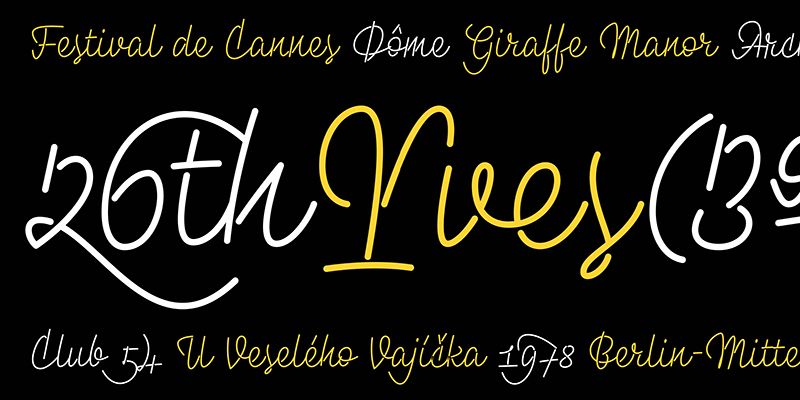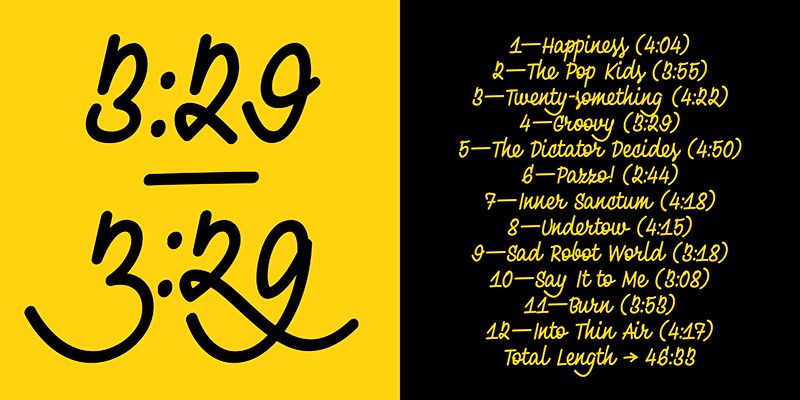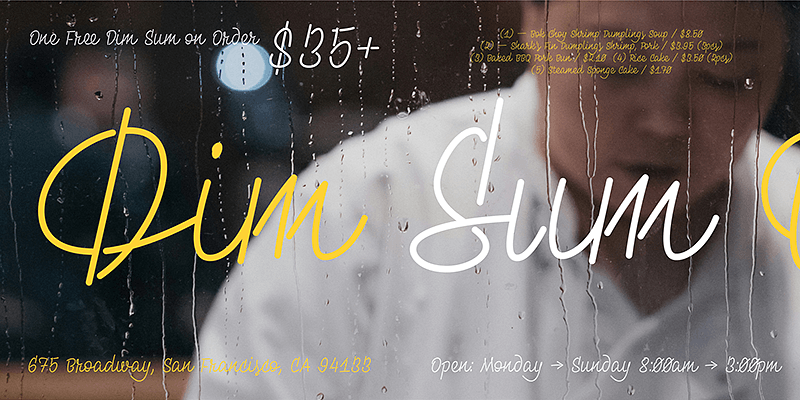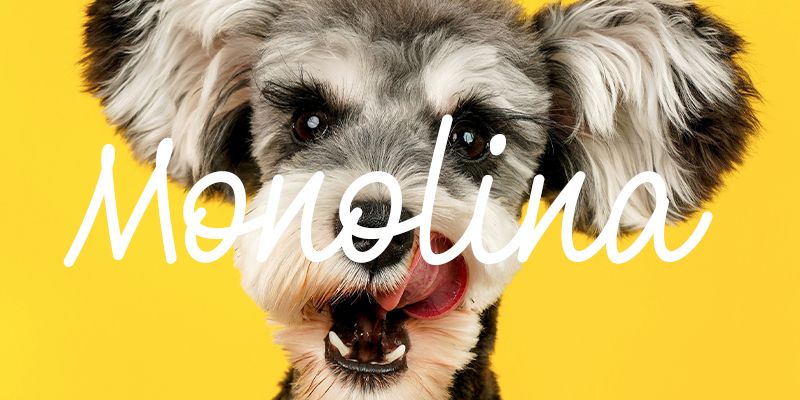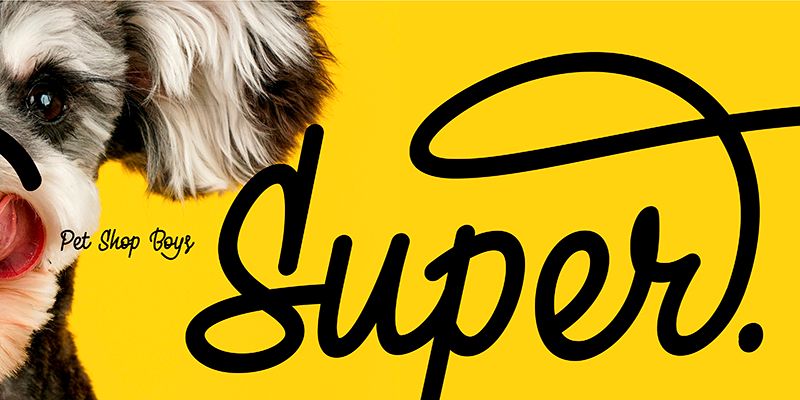
A versatile and playful monolinear script based on my manuscript. It’s capturing the natural flow and expressiveness, while looking timeless at the same time.
Monolina is highly stylized but retains its wild character, which stands out, especially in the larger sizes. It’s brimming with four sets of crazy uppercase, swash figures, contextual lowercase and plenty of accented ligatures, together with all neccessary characters and all sorts of symbols. It’s sketched with a ballpoint pen at an enlarged size. A ballpoint pen allows to control the glyph curve perfectly and keeps the monolinear stroke with zero contrast. Also, it was a replacement for standard Speedball pens, available in the Czech Republic under the brand Redispero. These were firmly attached to the original Czechoslovak advertising letterings. Due to the nib’s round shape, the strokes’ starts and exits are perfectly rounded. Since I wanted to stay with the single linear concept, hence the name: one-line –> mono-lina.